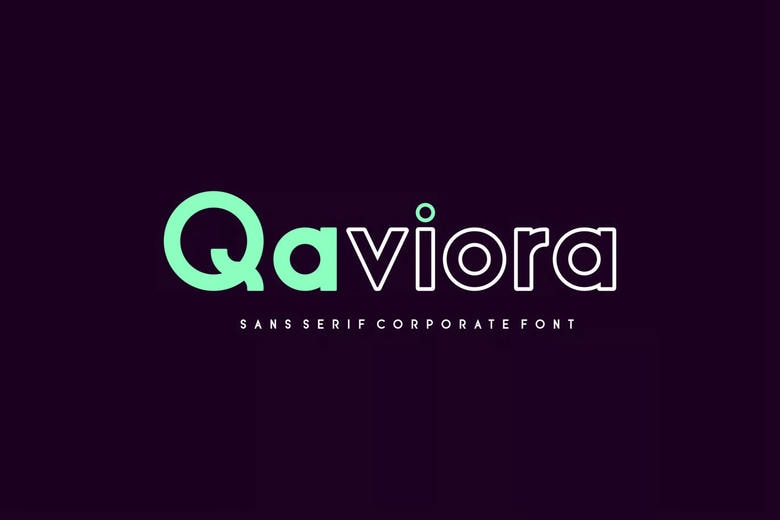
Qaviora Font
Qaviora is a modern bold and authentic sans serif font. The font is suitable for any branding project like logo, esport, and many more. outstanding in a wide range of contexts.
Qaviora Sans Serif Font